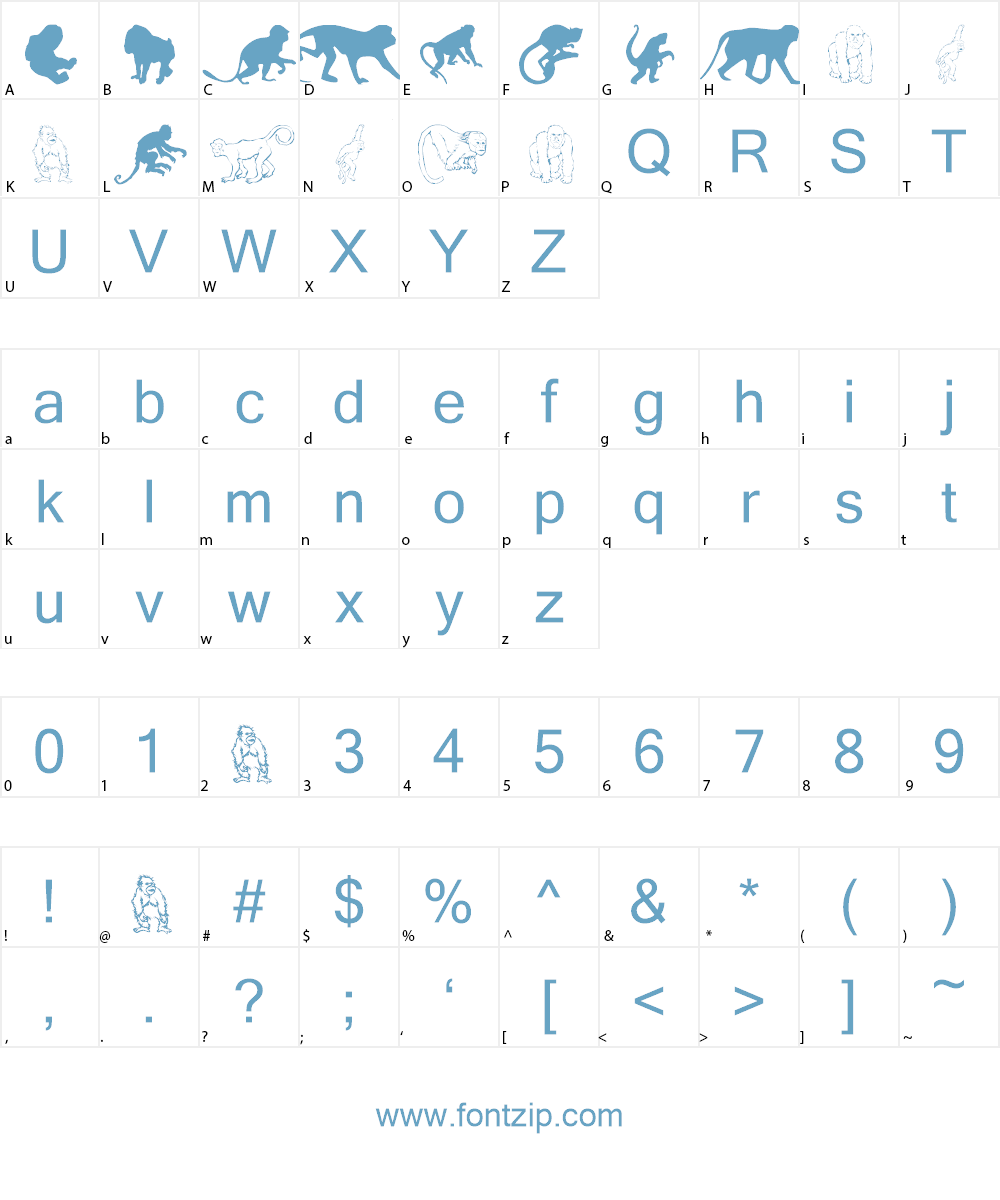
Images used are public domain and/or freeware. This font has two
duplicates and in the #1 is another one. That was meant to be
placed in the letter A and was then placed there. Monkeys are very
hard to use as medium for a font as most images available of them
are in color and very little drawn images exist. The fur also
causes problems when being used as a font. Therefore, these images
which used to be an original graphic or drawn image, were changed
to black and white images.